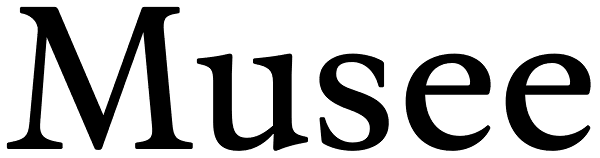
Musee
First inspired in a leaf from Missale Romanum ex Decreto Sanctrosancti Concilii Tridentinii Restitutum, printed by the Plantin Workshop at Antwerp in 1642, Musee was designed for booktext purposes and is very elegant and highly readable even in...